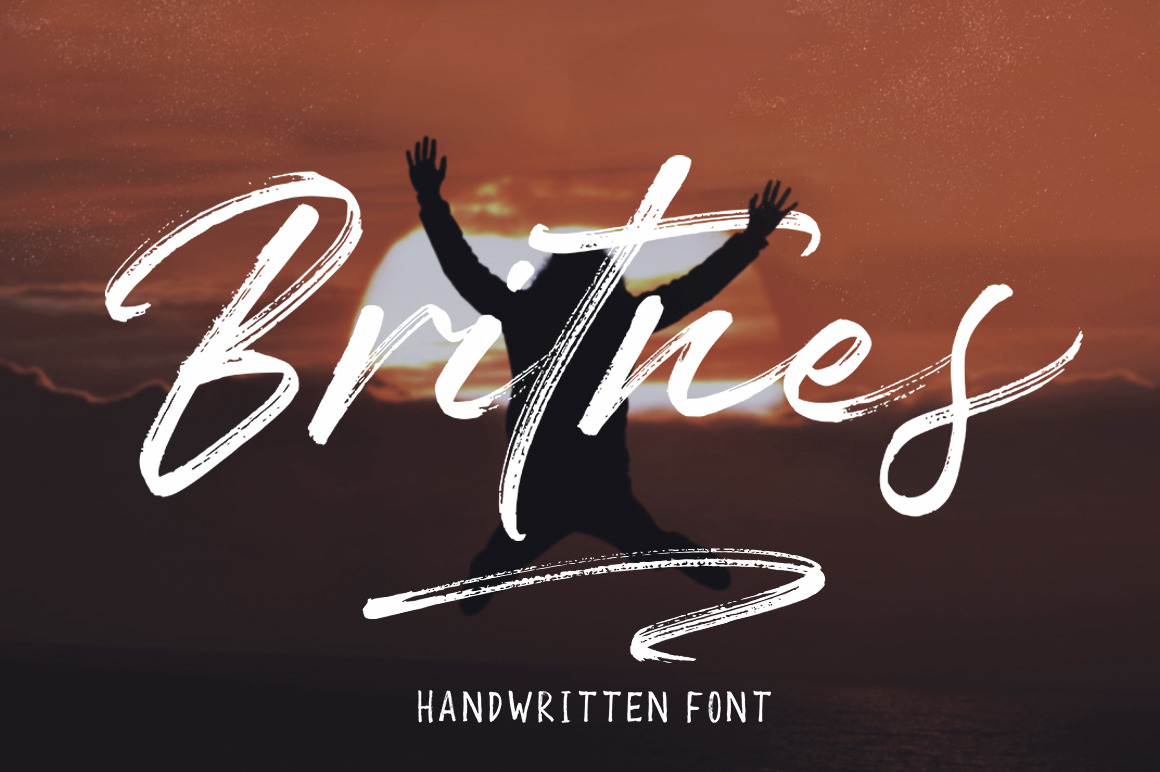
Britnes - Handwritten Font
Britnes is a handwritten brush font, contemporary approach to design, natural handcrafted,
suitable for use in title designs such as clothing, invitations, book titles, stationery designs, quotes,
branding, logo, greeting card, T-shirt, packaging design, poster,
and much more. complete with upper and lower case, and multi-language, numeric, punctuation support. also provides some additional binders and sweeps.